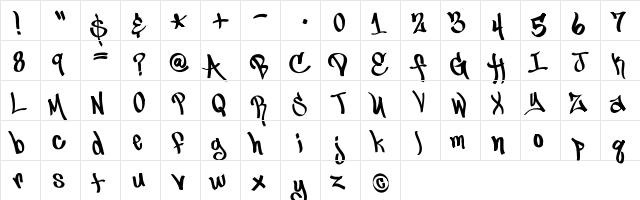
Go Vandal Regular
| Foundry | Dave Tevenal & Go Media Inc |
| Designer | Dave Tevenal |
Design Context for Go Vandal Typeface
Go Vandal is a composed and adaptable typeface that performs quietly and consistently across a wide range of design contexts.